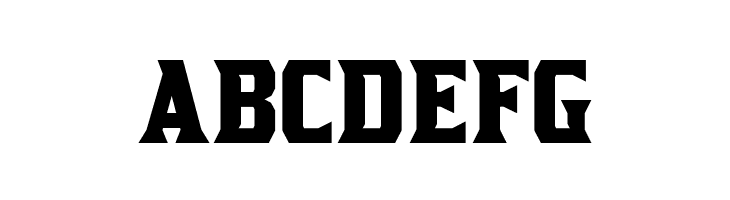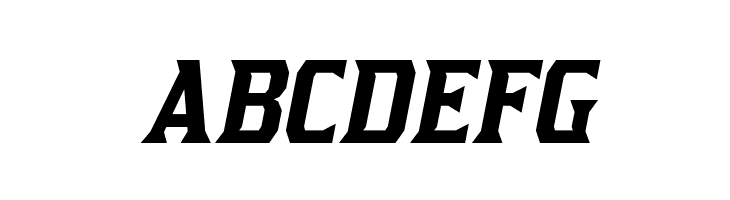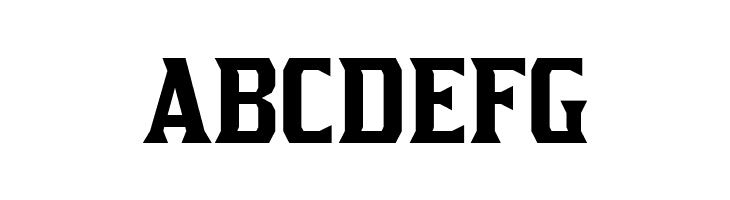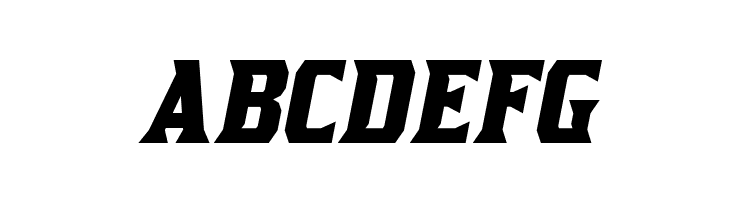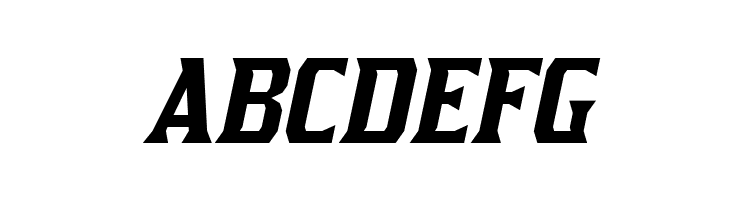
KirstyRg-Regular Font
A bold, geometric font with sharp, angular edges and consistent stroke width.
KirstyRg-Bold Font
A bold, angular font with a vintage yet modern style, perfect for striking headlines.
A bold, angular font with a vintage yet modern appeal, ideal for impactful displays.
KirstyRg-BoldItalic Font
A bold, italicized font with sharp angles and a dynamic presence.
KirstyRg-Italic Font
A bold, italic font with sharp angles and strong presence.
A bold, italicized font with sharp angles and dynamic energy.
A bold, italicized font with sharp, angular edges and a dynamic, modern style.